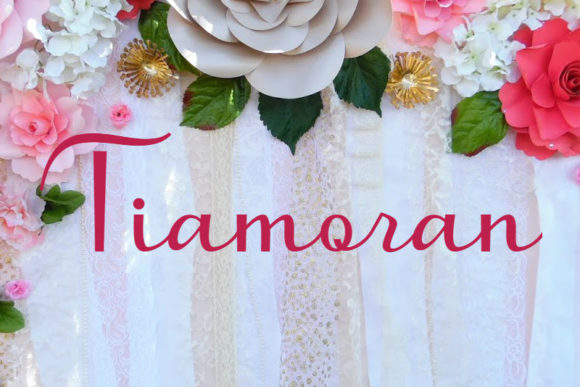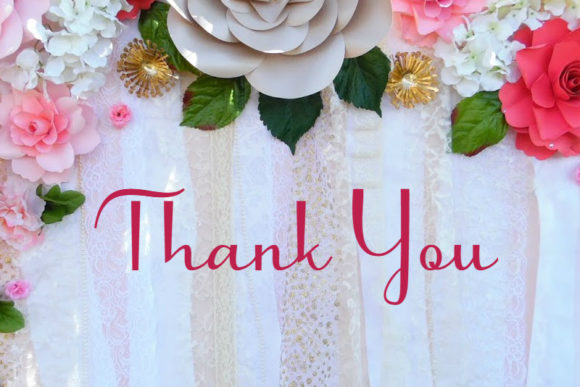
Tiamoran Font
About Tiamoran Font
With its monoline lettering and smooth curves, Tiamoran is the perfect typeface for any crafting project that requires an elegant and beautiful feel.